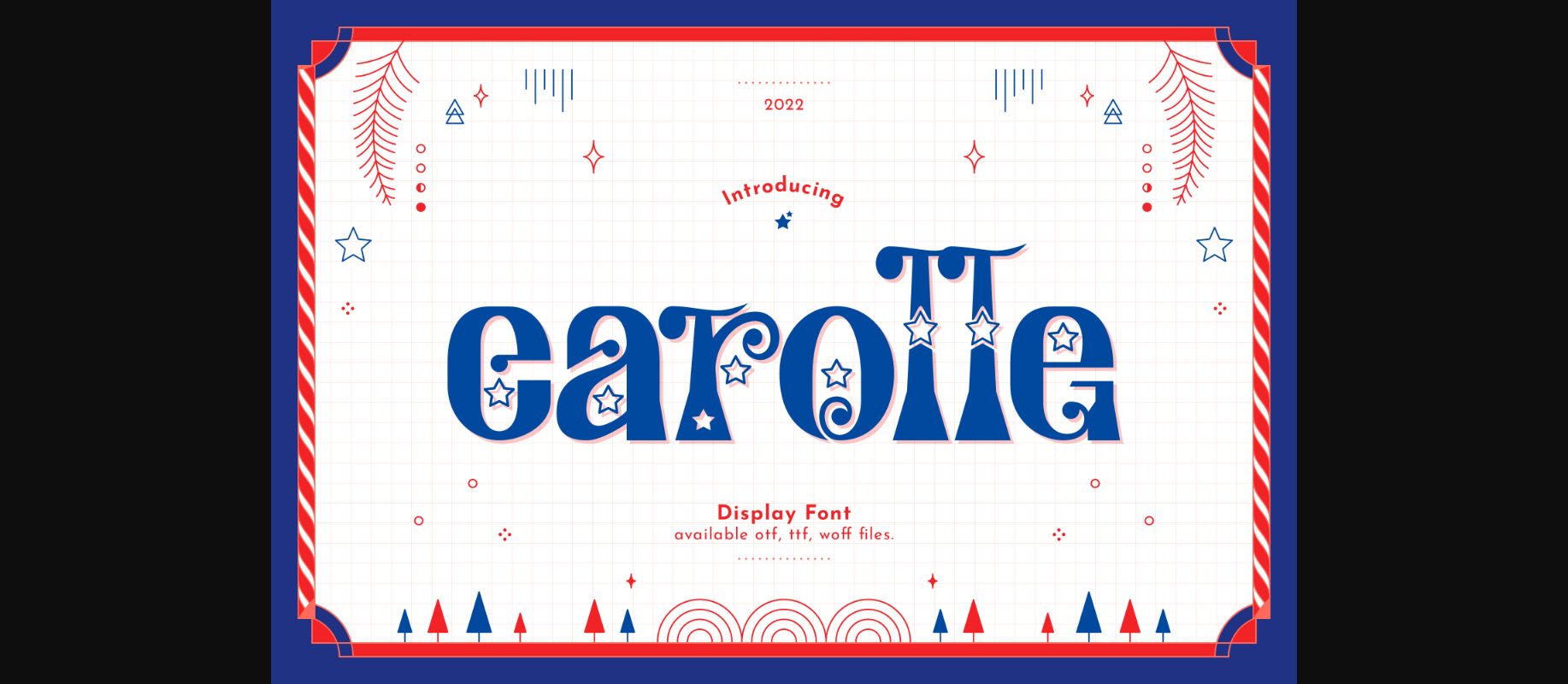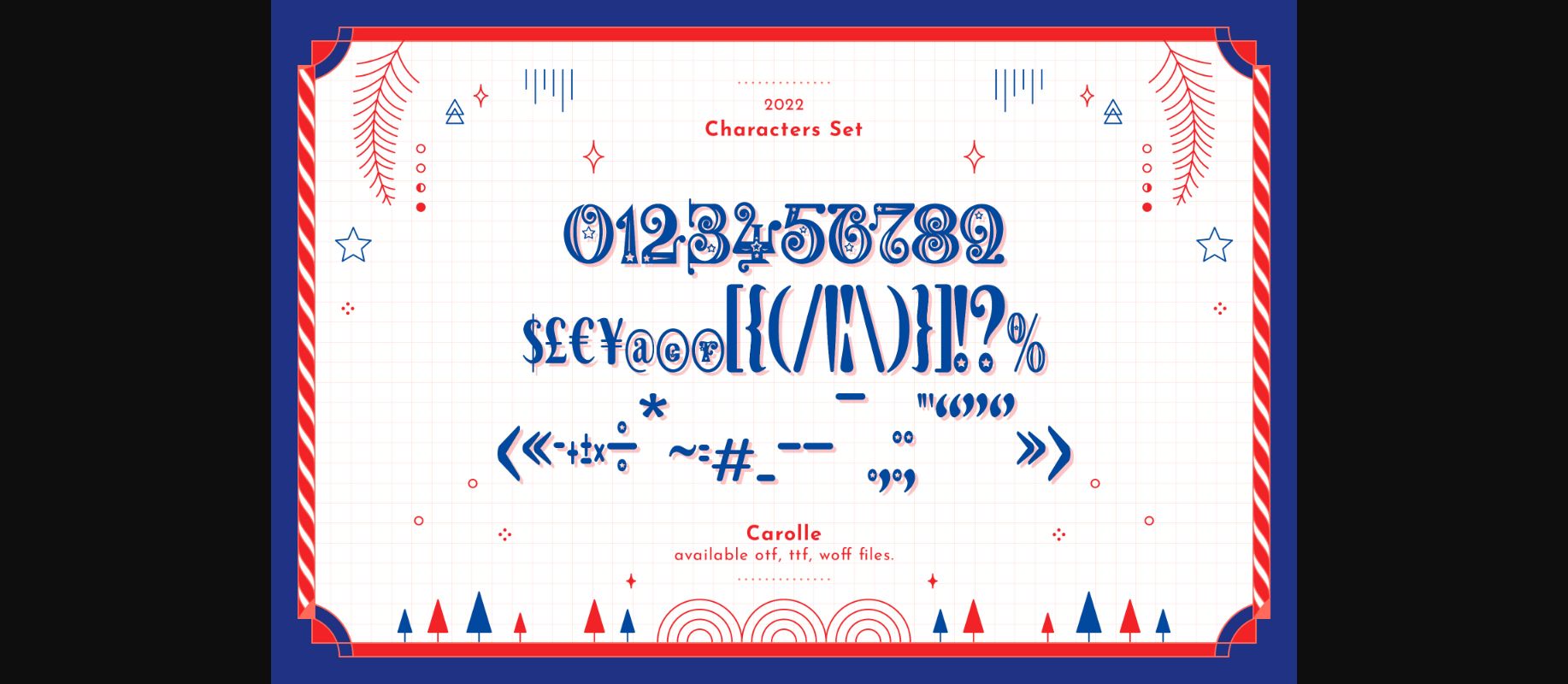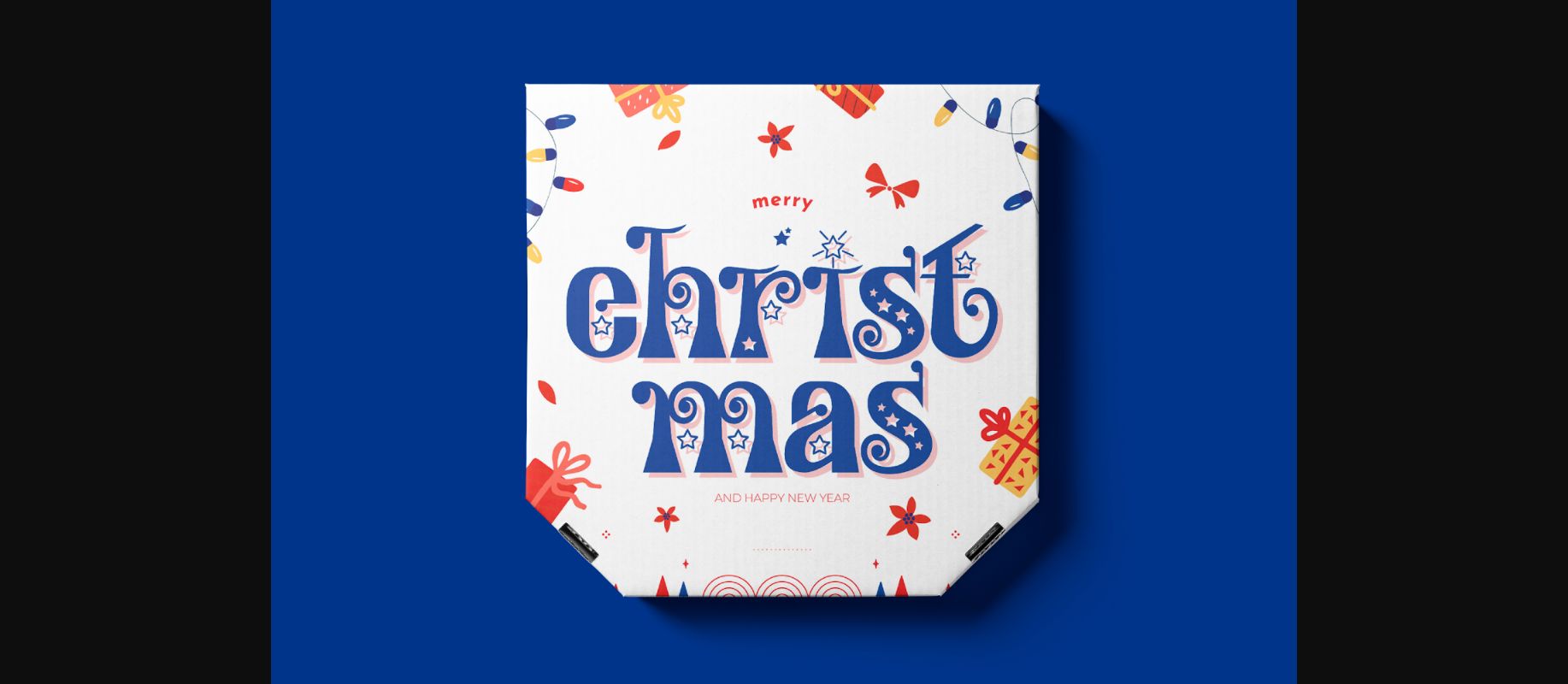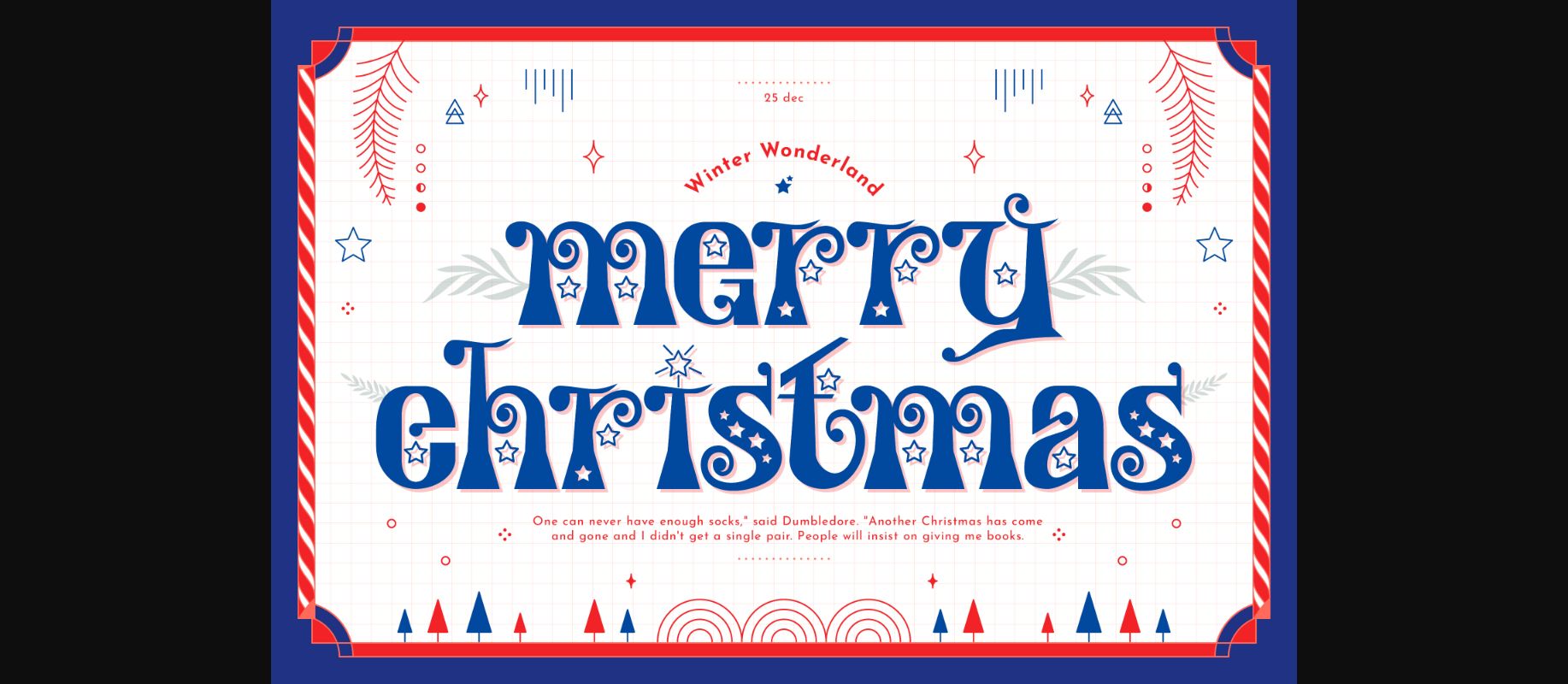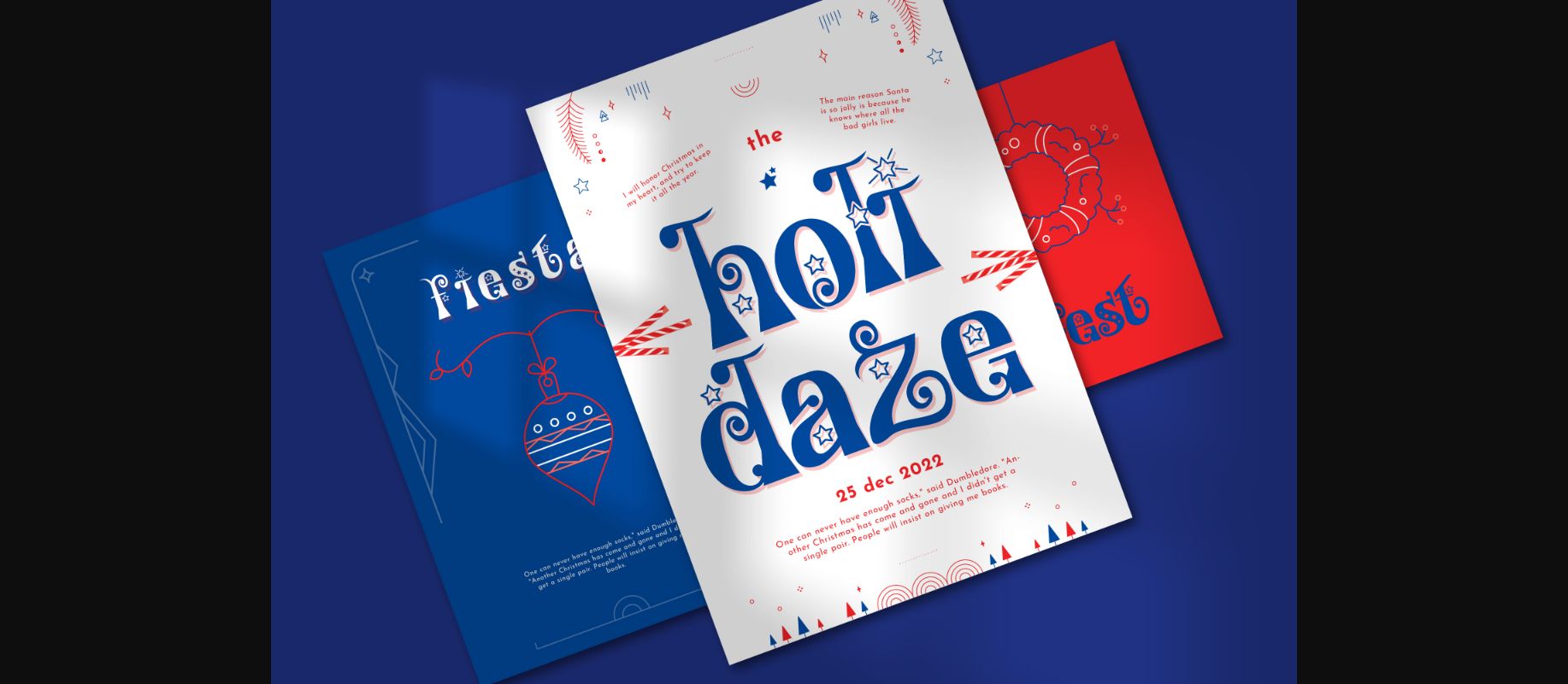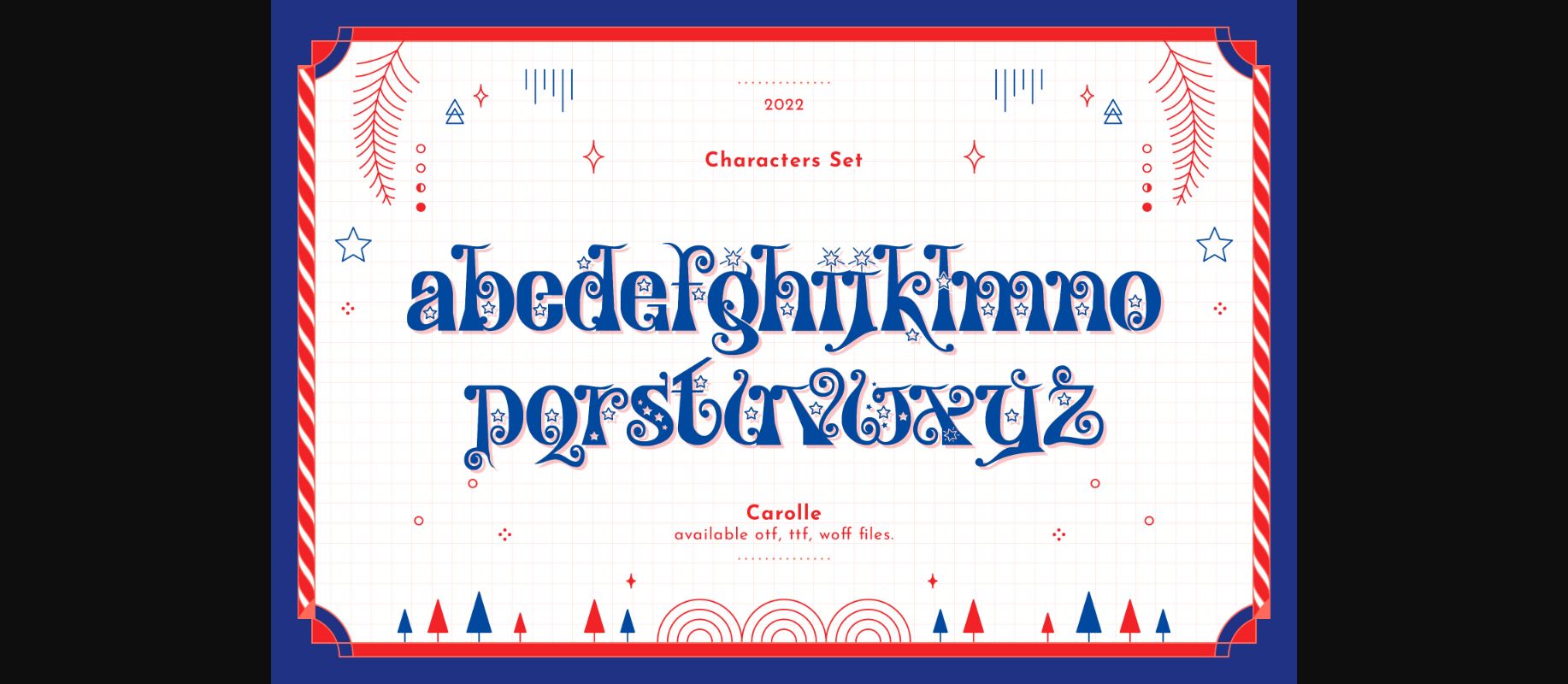
Carolle Font
About Carolle Font
Carolle is a whimsical and splendid lowercase decorative font that can help you create magical designs! Try it on storybook covers, kids-related produce packaging, logos, business cards, fashion labels, or anything that needs a sophisticated look!